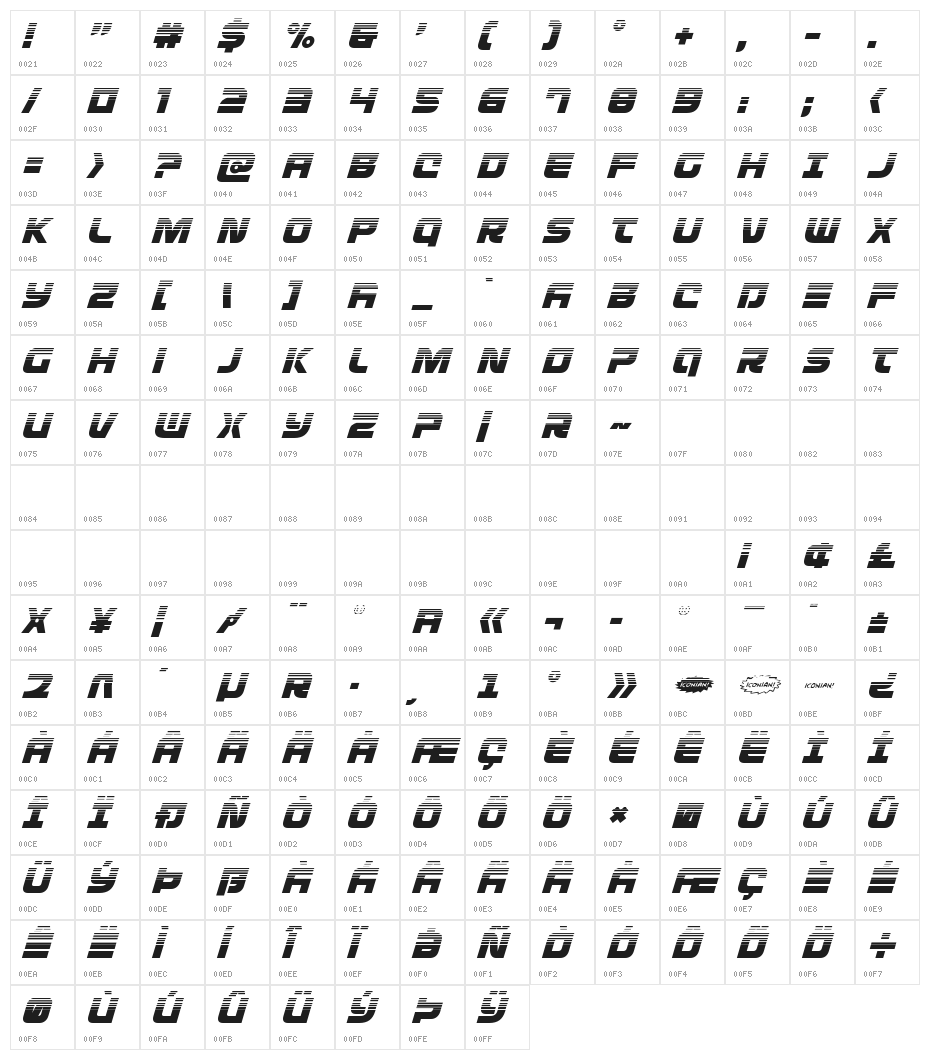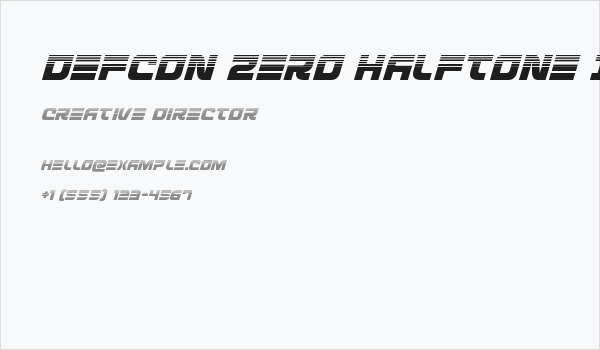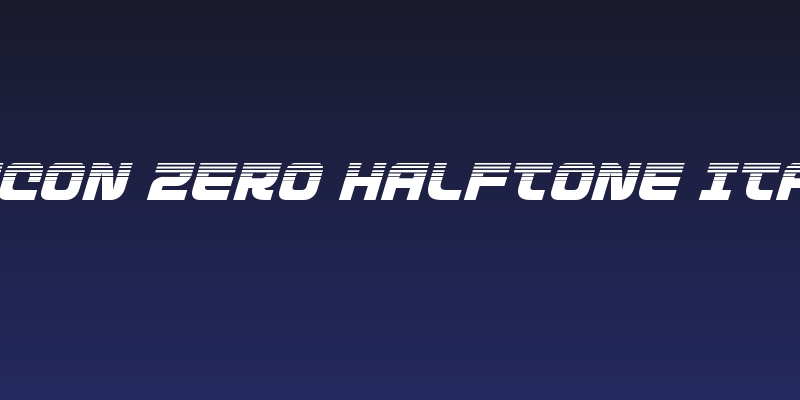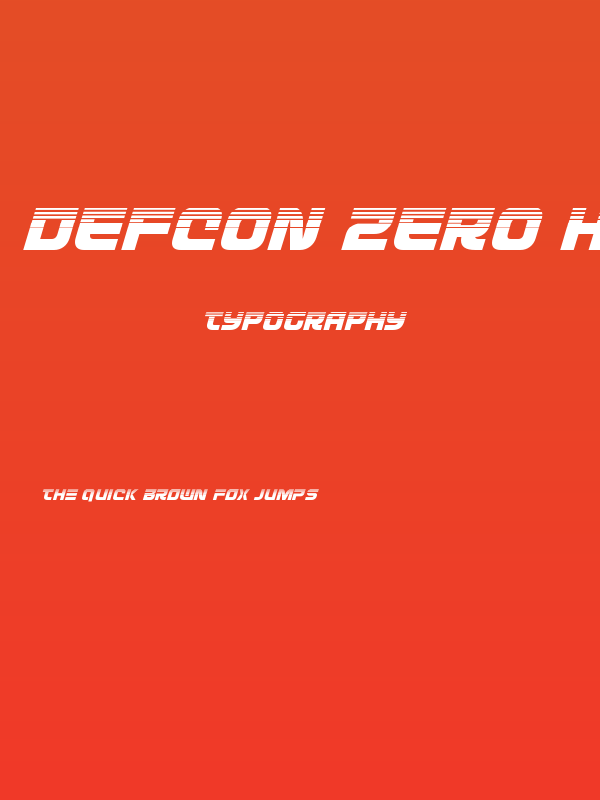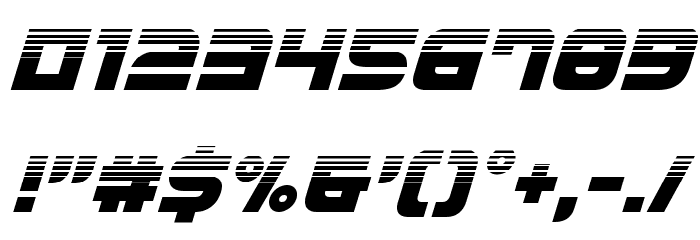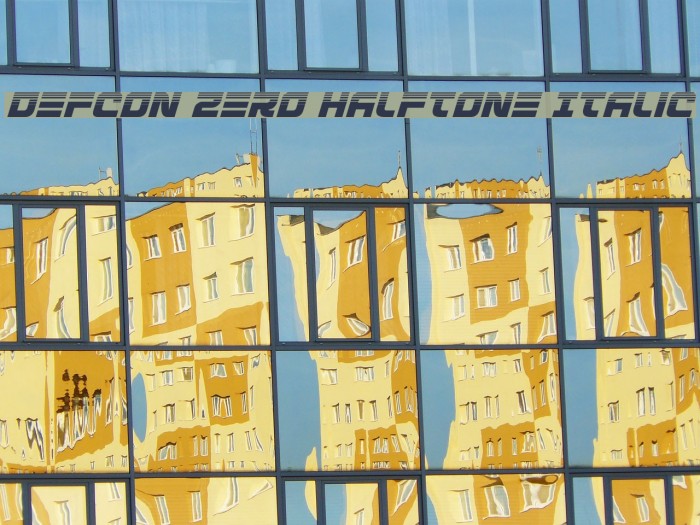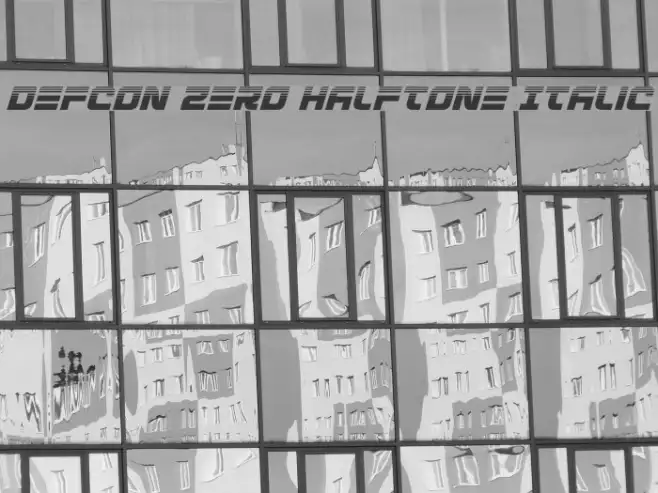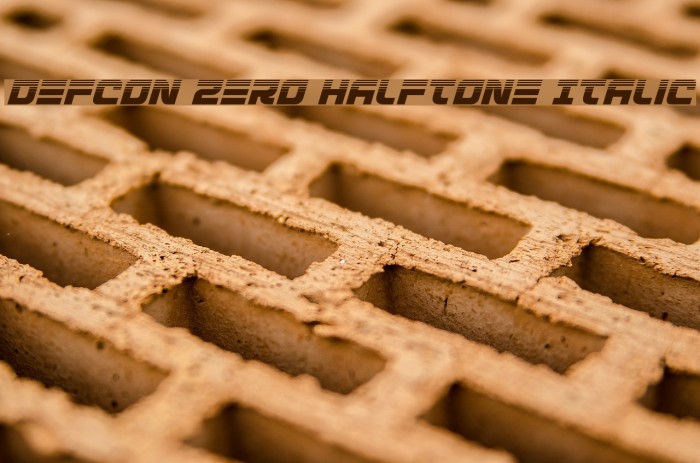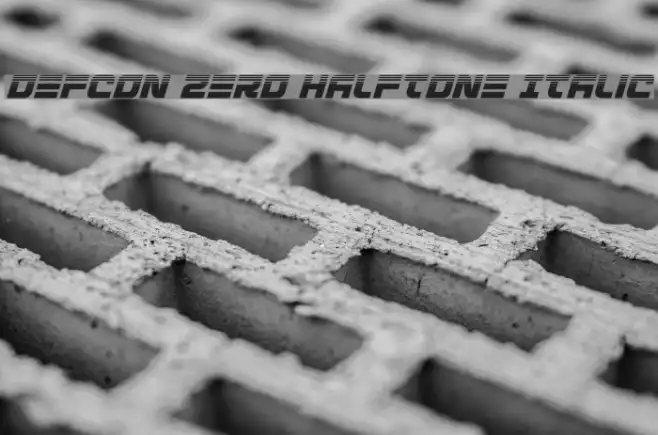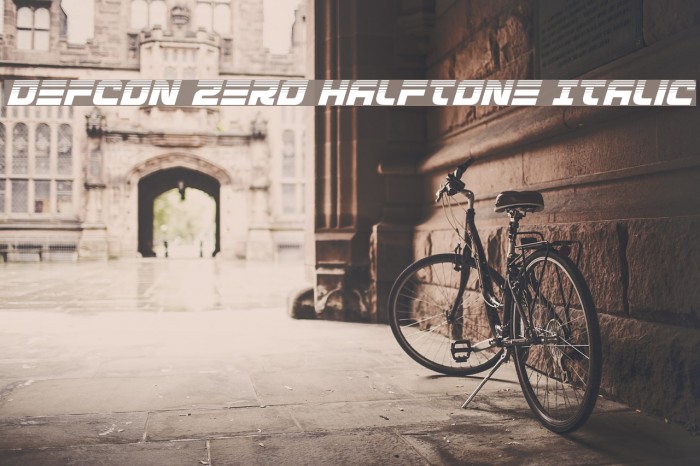
Defcon Zero Halftone Italic Font
Defcon Zero Halftone Italic Description
This font features a bold, futuristic design with a distinct halftone effect that gives it a dynamic and energetic appearance. The italicized letters add a sense of motion and speed, making it ideal for projects that require a modern and edgy look. The uppercase and lowercase letters are consistent in style, with sharp angles and clean lines. The numbers and special characters maintain the same aesthetic, ensuring a cohesive look across all text elements. The font's unique style is perfect for attention-grabbing headlines, logos, and branding materials that aim to convey a sense of innovation and forward-thinking.
| Proposed Projects | Ideal for sci-fi themed designs, tech company branding, video game titles, and modern advertising campaigns. |